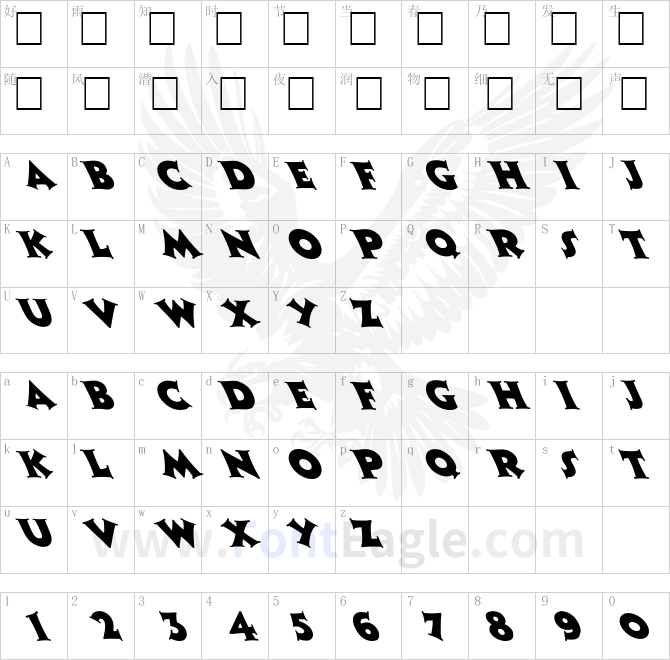
FZ-JAZZY-13-LEFTY is a great font, widely used in graphic design, single-page menu design, poster design and other fields, and is deeply loved by designers.FZ-JAZZY-13-LEFTY download.